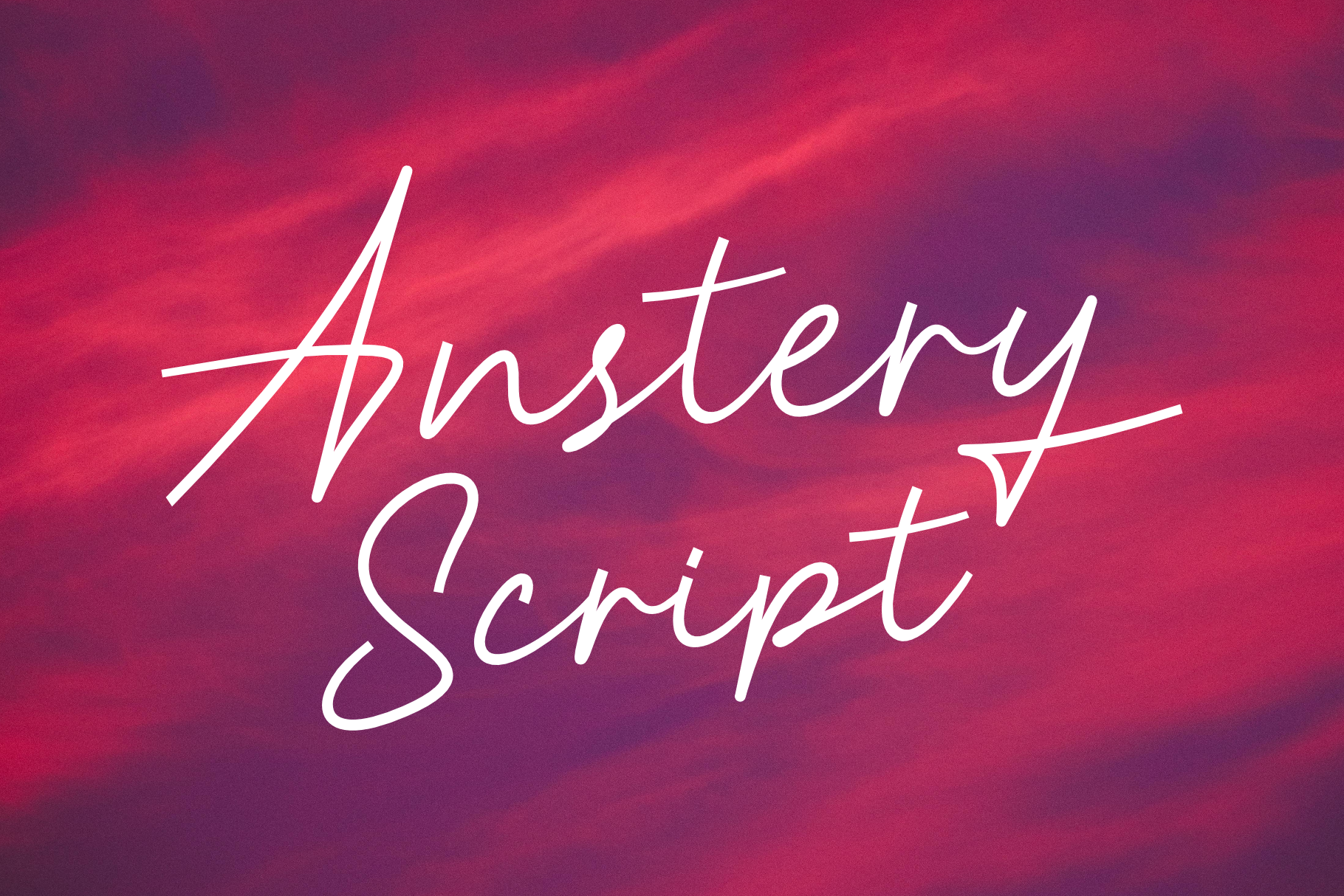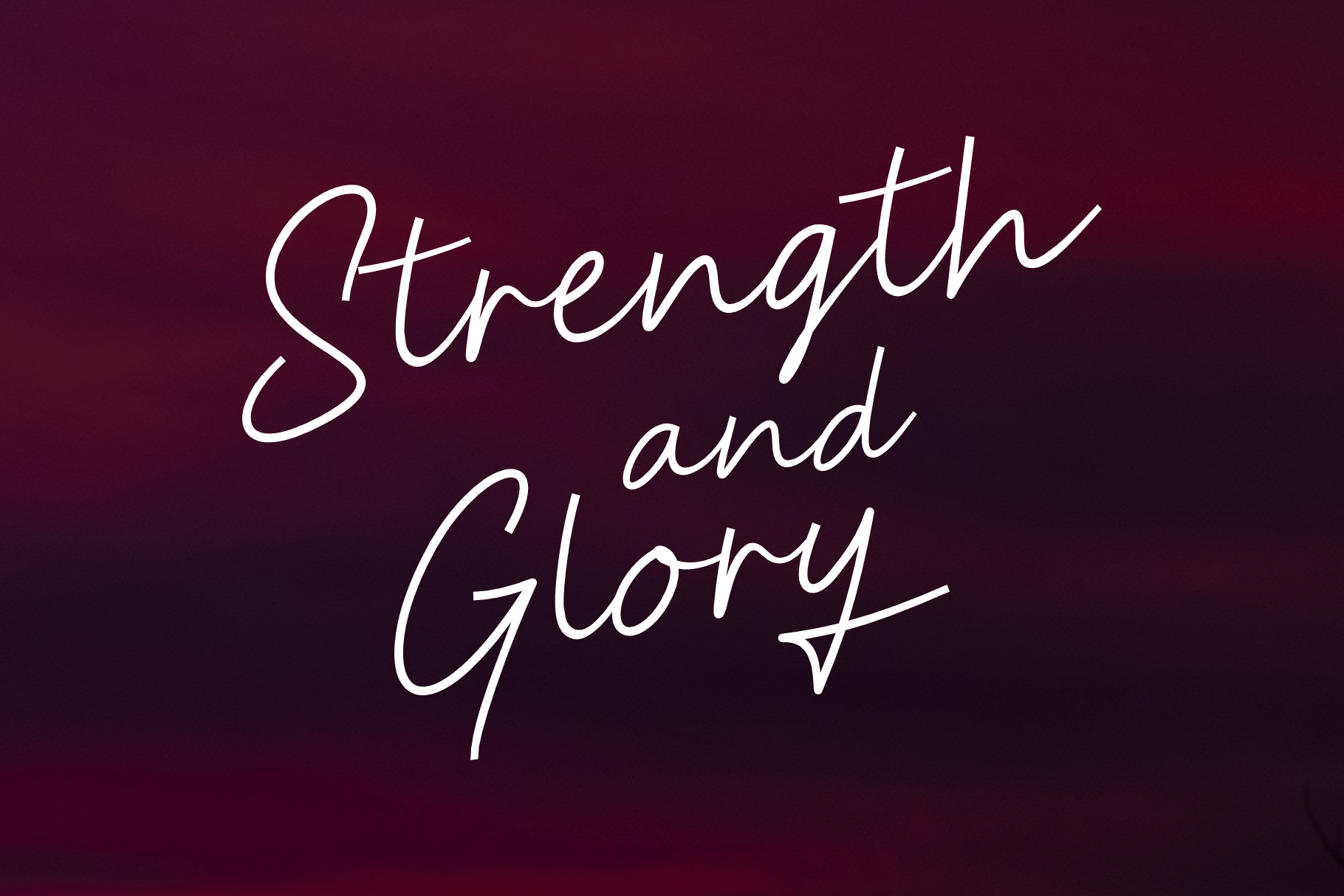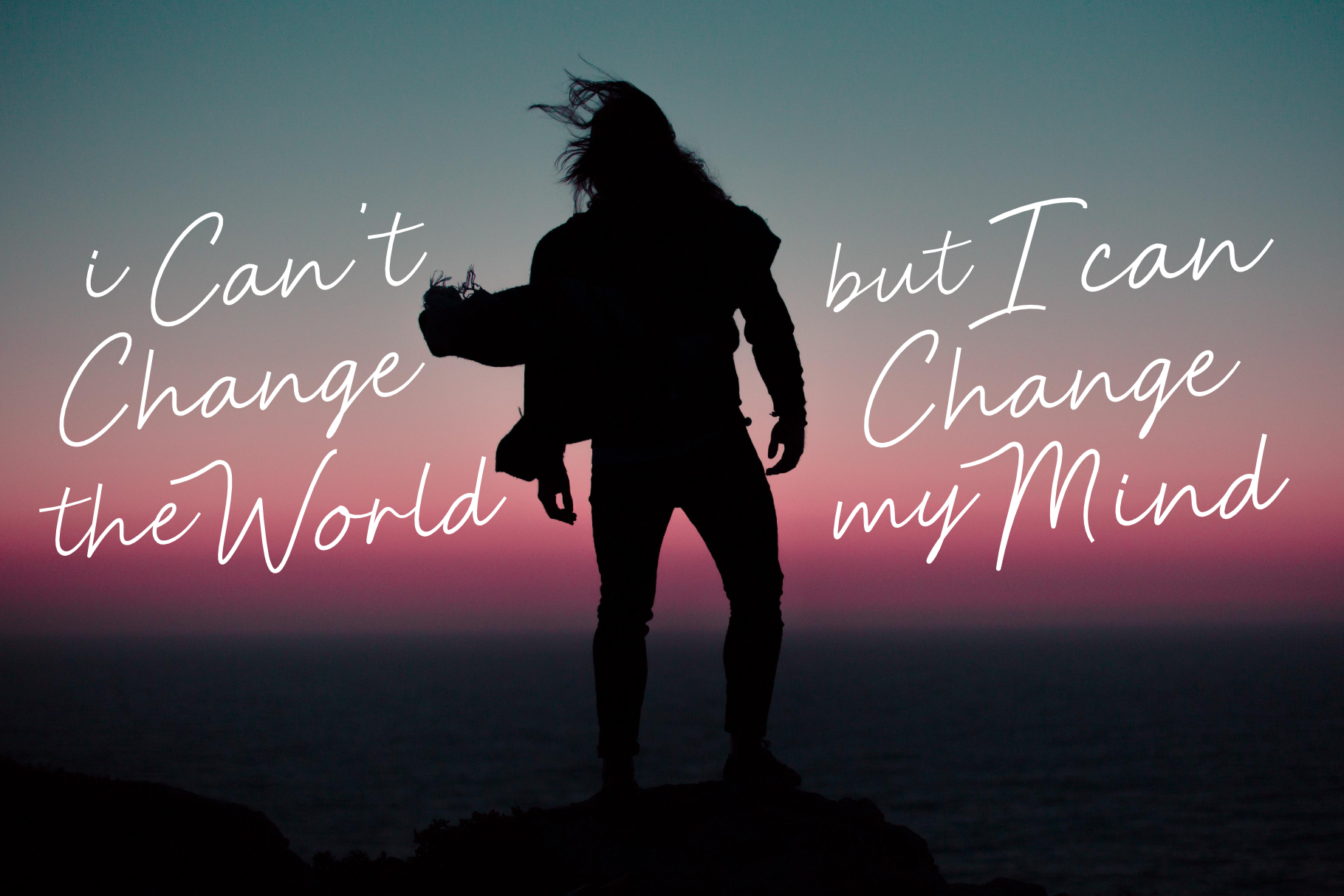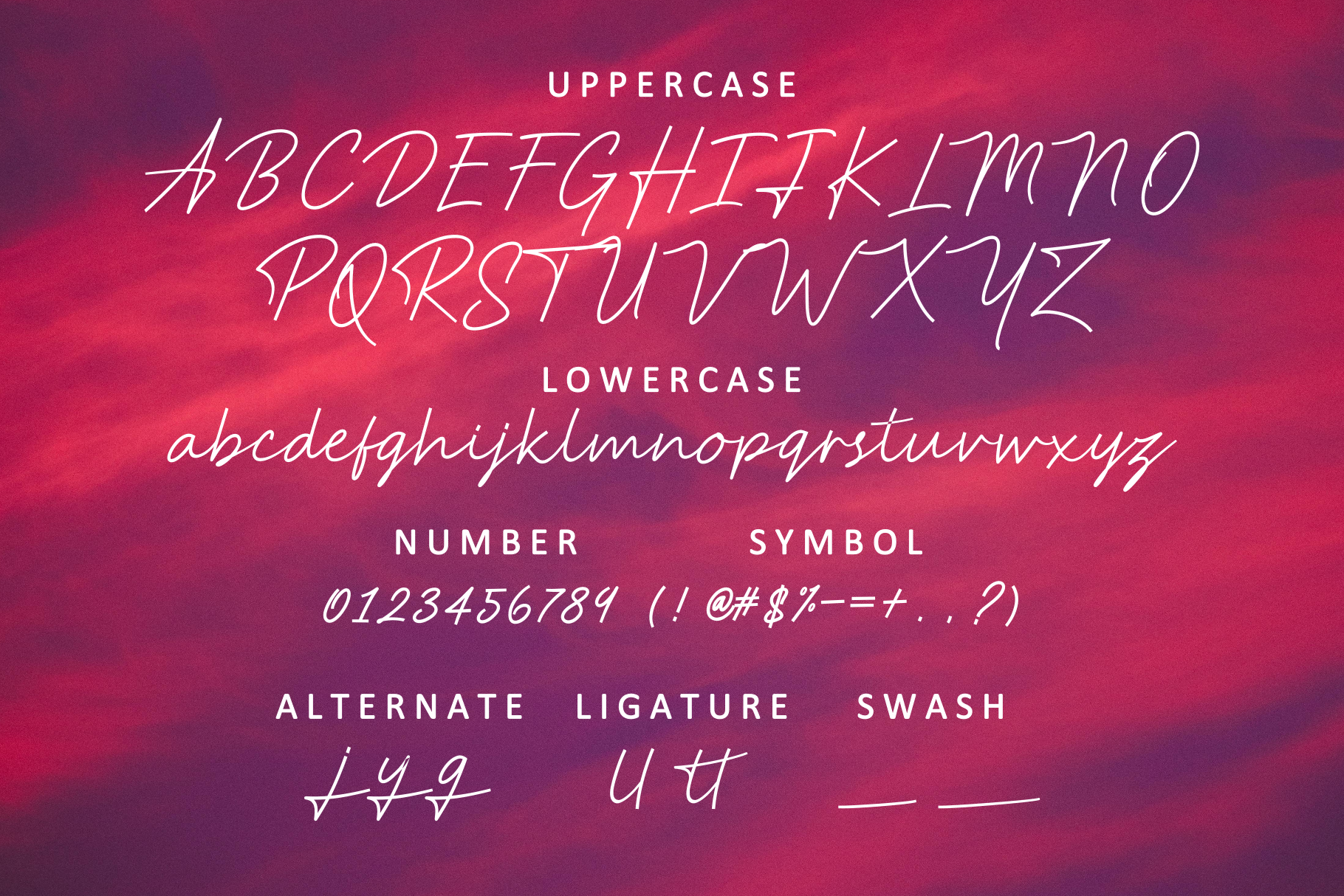
Anstery Font
About Anstery Font
Anstery is a simple signature script font, perfect for a wide range of uses. This font works well in giving projects a laid back and chill vibe, and has a very appealing modern look.